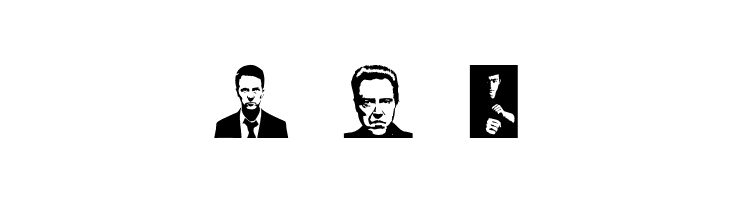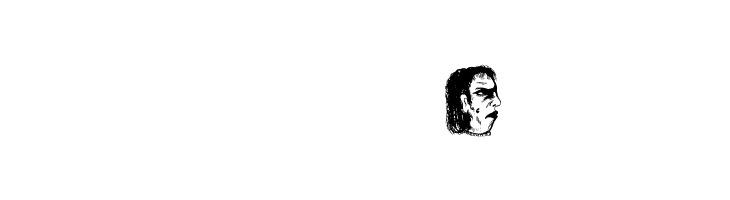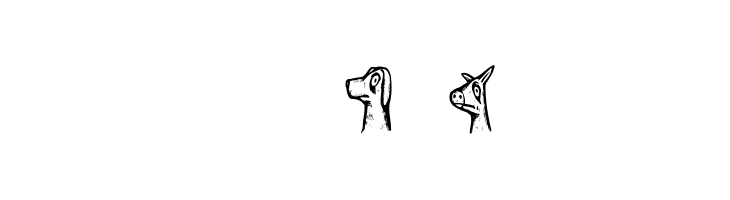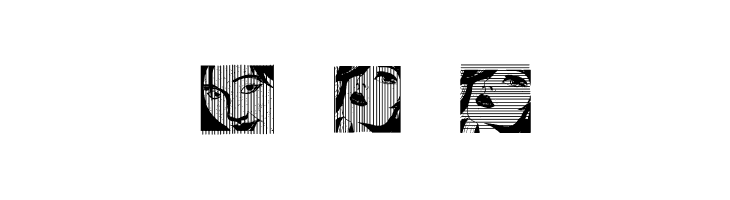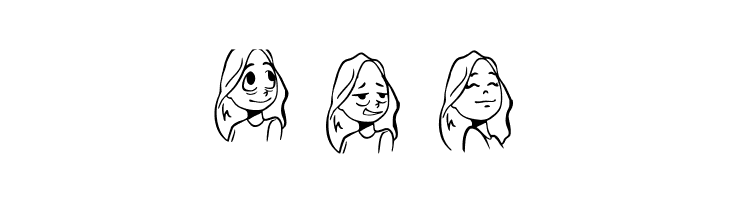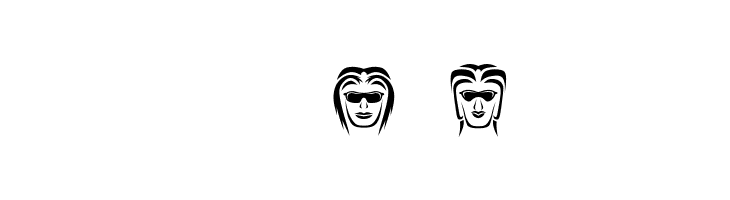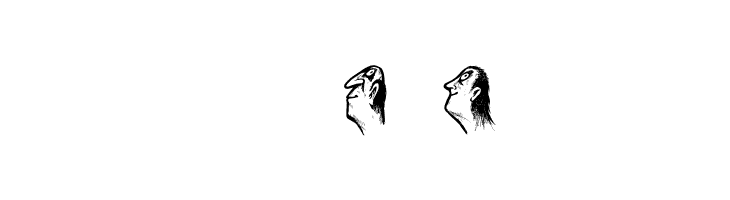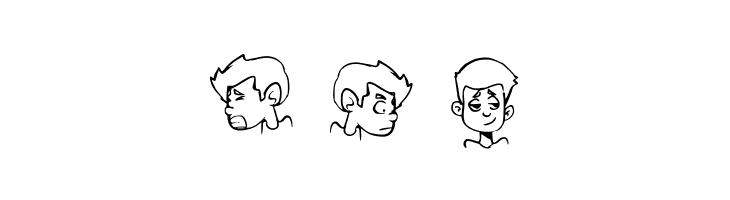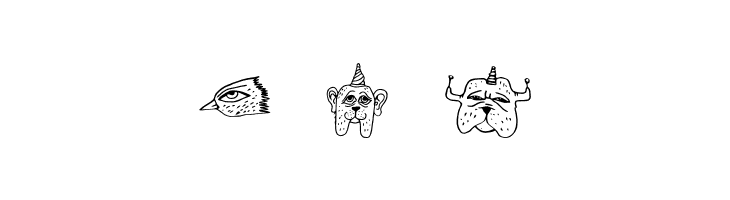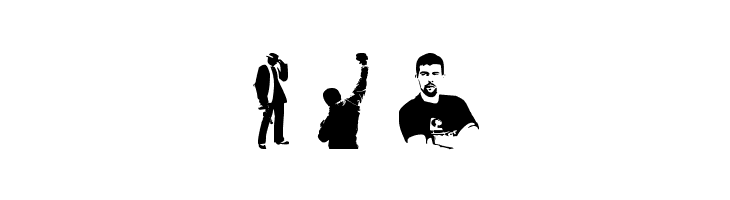
A decorative font with each character depicted as a stylized human face.
Hand-drawn, monster-themed decorative font with unique illustrations for each character.
Decorative stencil font using illustrated figures and objects as glyphs.
A hand-drawn, sketch-like font with thin, uneven strokes and a creative flair.
Hand-drawn decorative banners in black and white.
Cartoonish, beach-themed decorative font with illustrated characters.
Hand-drawn dingbat font with playful, hobby-themed icons.
Cartoonish font made of expressive smiling faces.
Whimsical teddy bear illustrations form each character.
A decorative dingbat set of illustrated women's heads in a vintage style.
Highly decorative and ornate illustrated font with floral motifs.
A whimsical dingbat font with illustrated angels and bears.
Whimsical display font with letters inside ice cream cones.
A novelty font with presidential and historical figure illustrations for each character.
A whimsical, illustrated font inspired by nursery rhymes, perfect for decorative uses.
A playful font with cartoon pig illustrations integrated into each character.
A whimsical, illustrated font with bold, rounded characters featuring integrated character designs.
A whimsical, decorative font with cartoon-like illustrated characters.
A decorative font made up of diverse cartoon eye illustrations.
A display font composed of illustrated portrait glyphs instead of traditional letterforms.
Font made of expressive, hand-drawn profile faces.
Highly detailed dinosaur silhouettes replace standard characters.
A decorative font with each letter illustrated as an animal head.
Decorative font with illustrated female faces in each glyph.
A novelty font made up of illustrated portraits instead of traditional letters or numbers.
Decorative font featuring cybernetic-themed illustrated portraits for each character.
Hand-drawn cartoon font made of expressive character faces.
Decorative font made of illustrated female faces.
A whimsical font featuring illustrated faces with mustaches for each character.
Hand-drawn caricature font with expressive, illustrated profiles.
Expressive cartoon faces font with varied emotions and angles.
Ornamental icon font featuring stylized religious female portraits.
Decorative font featuring illustrated lips for each character.
A display font composed of illustrated mask icons for each character.
Hand-drawn ASL sign illustrations for each letter and number.